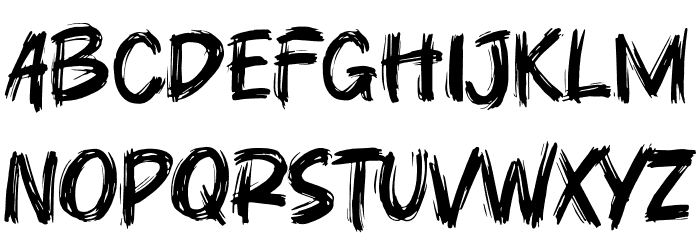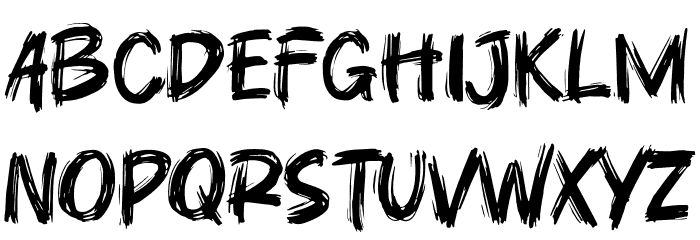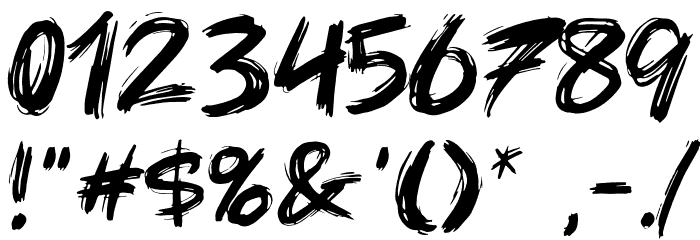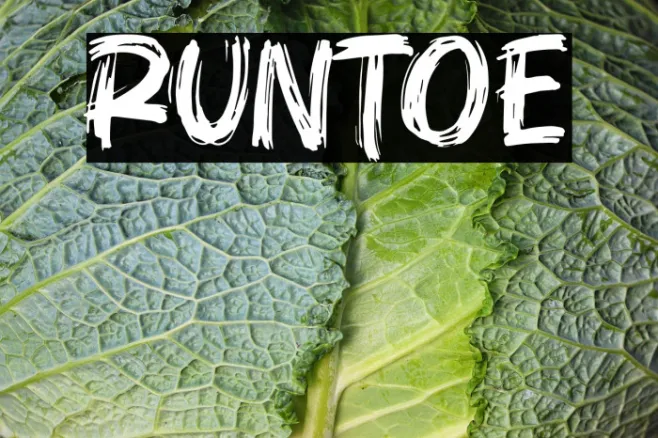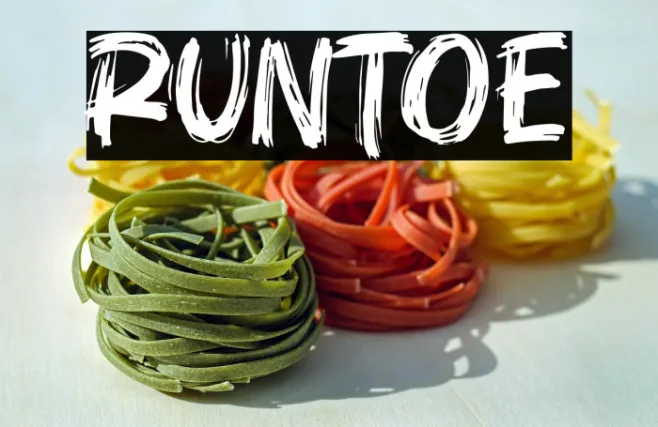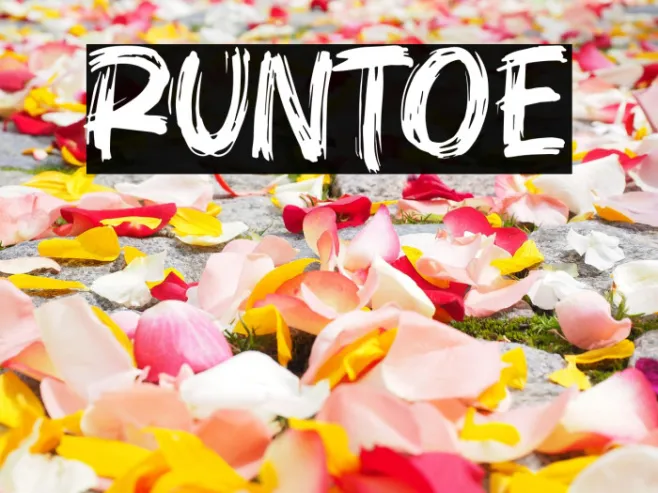
Runtoe Font
This font features a bold and expressive brushstroke style that exudes energy and dynamism. The characters are crafted with a rough, hand-drawn appearance, giving them a raw and artistic feel. Each letter is unique, with varying thicknesses and angles, creating a sense of movement and spontaneity. The font's irregular edges and bold strokes make it stand out, perfect for grabbing attention. Its artistic flair is ideal for projects that require a touch of creativity and individuality. The numbers and special characters maintain the same energetic style, ensuring consistency across all text elements.
A bold, brushstroke font with an energetic and artistic style.
- Proposed Projects: Ideal for posters, album covers, artistic branding, and creative advertising campaigns.
- Overall Style: Artistic, Energetic, Creative